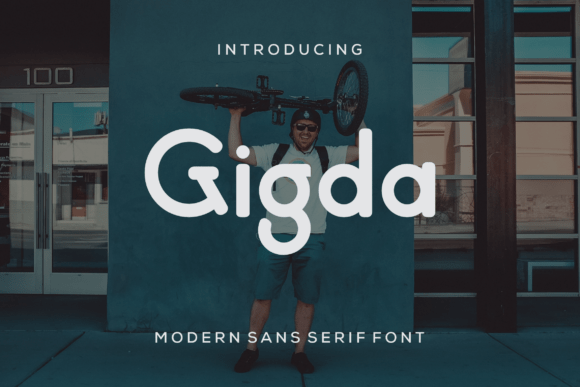
The Birth of a Bold New Font: Gigda Font
Imagine you’re brainstorming a fresh campaign for a trendy new brand. You’ve got your concept, your message, and your vision, but something’s missing – a font that truly makes it pop. That’s when the magic happens, and the search for the perfect font begins. It’s a moment every designer knows all too well. In this quest for the ultimate typographic companion, we’re excited to introduce you to the Gigda Font – a modern sans serif font that’s about to revolutionize the way you communicate.
Gigda Font is more than just a font; it’s a versatile display font with a playful flair that adds a dynamic touch to any message. Whether you’re crafting attention-grabbing headlines or designing logos, Gigda Font is the perfect companion for your creative endeavors. Its readability in both digital and print makes it an invaluable asset for designers, allowing them to bring their ideas to life in a way that truly resonates with their audience.
Gigda Font Key Features
- Font Family: Gigda is a sans-serif font family.
- Font Sizes: Available in 4 different font weights: Light, Regular, Medium, and Bold, each with its unique characteristics.
- Unique Characteristics: Gigda features a clean, modern design with geometric shapes and subtle rounded edges, making it perfect for contemporary and minimalist designs.
Gigda Font Review
Gigda Font is a visually striking sans-serif typeface that I’ve had the pleasure of working with. One thing that truly shines is its ✨ high level of legibility, making it perfect for body text and reading materials. The font’s clean lines and rounded edges create a friendly atmosphere that’s hard to resist.
Another great aspect of Gigda Font is its ✨ versatility in various font sizes. Whether it’s a heading or a paragraph, the font scales beautifully, maintaining its clarity and visual appeal. Additionally, the font’s ✨ OpenType features add an extra layer of sophistication, making it a great choice for creative projects.
However, there are a few limitations to consider: ⚠️ limited language support, which might be a concern for projects that require a broad range of languages. Additionally, ⚠️ the font’s rounded edges might not be suitable for projects that require a more formal or serious tone.
Overall, I’m impressed with Gigda Font’s design and performance. It’s a great choice for creative projects, marketing materials, and digital products. While it may have some limitations, the font’s strengths make it a valuable addition to any designer’s toolkit.
Here are some key features that I liked:
- High level of legibility
- Good scaling in various font sizes
- OpenType features for added sophistication
- Clean and modern design aesthetic
And here are some potential drawbacks:
- Limited language support
- Rounded edges may not be suitable for formal projects
Gigda Font Practical Application Guide
Tips for Getting the Most Out of the Gigda Font
Use the Gigda font in combination with other design elements, such as graphics, images, and colors, to create a cohesive and visually appealing design.
Experiment with different font sizes, colors, and styles to find the perfect balance for your project.
Use the Gigda font in headings and titles to create a clear hierarchy of information.
The Gigda font is perfect for creative projects, such as graphics, brochures, and presentations.
Use the font in branding materials, such as business cards, logos, and letterheads.
The Gigda font is also suitable for academic and educational projects, such as research papers, essays, and presentations.